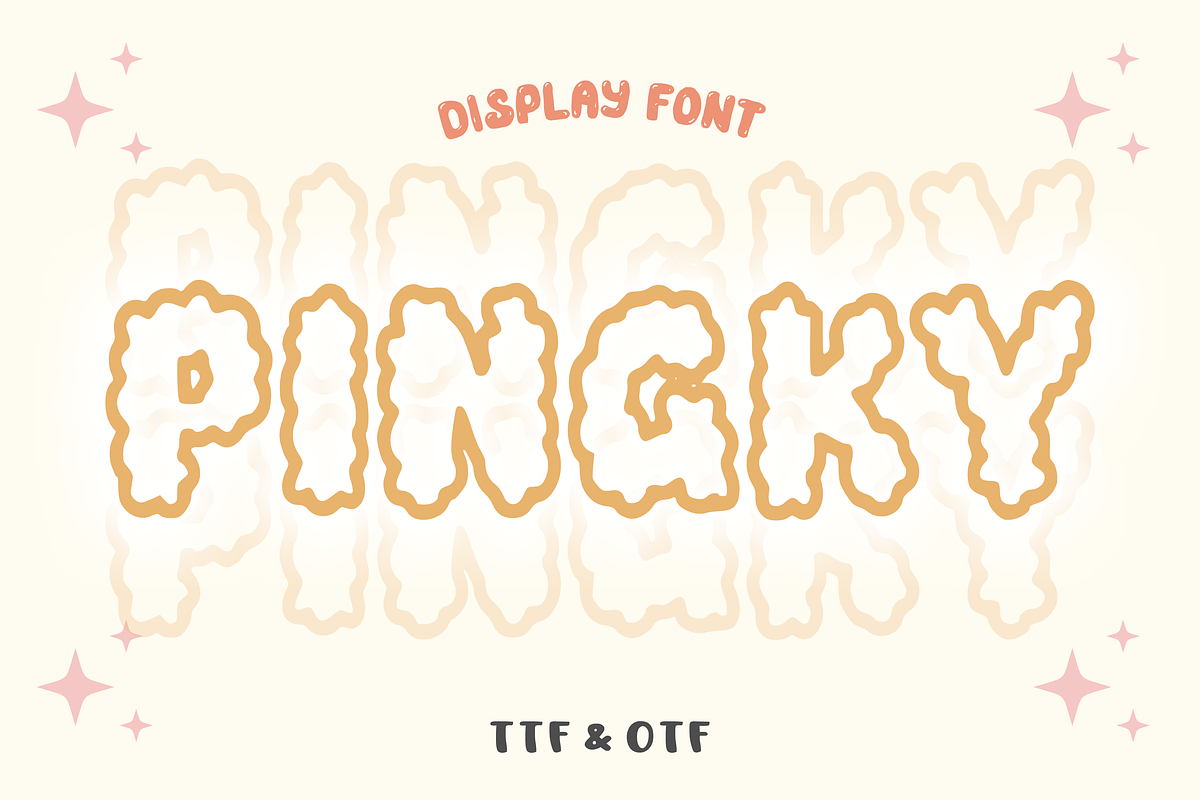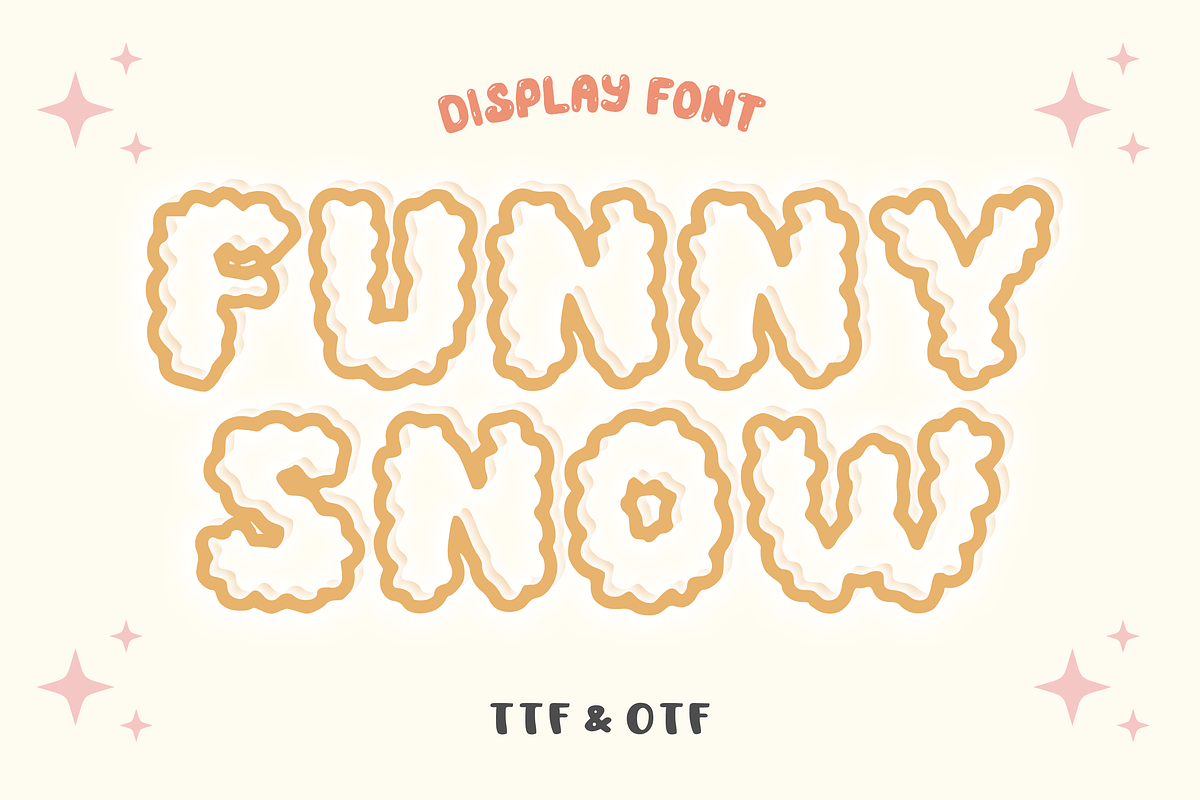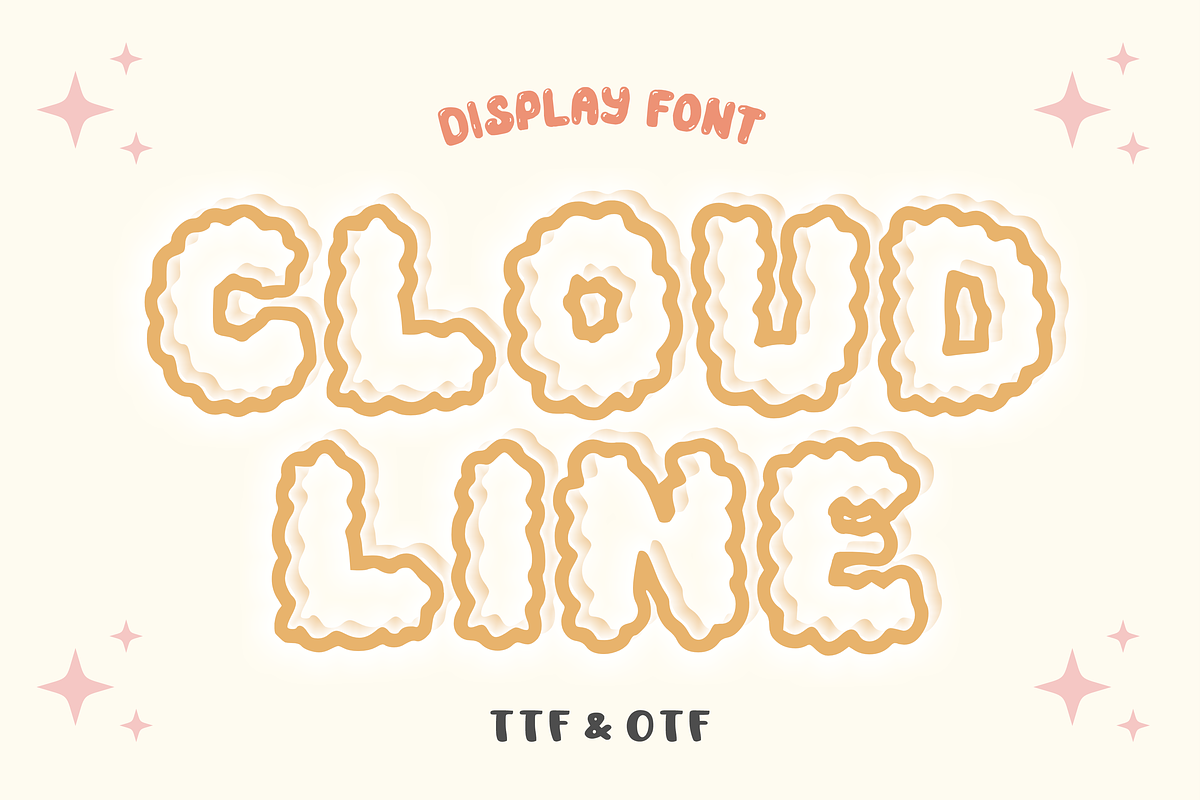
Cloud Line - Baby Font Types
Cloud Line is a line font that exudes energy and playfulness. With unique bumps and lively characters, this font adds a touch of baby charm. Perfect for comic, poster, or sticker designs, Cloud Line brings a playful and fun feel to your Designs, making it perfect for projects that require a childish/baby style. Get ready to have fun and let your creativity soar with the enchanting charm of Cloud Line!